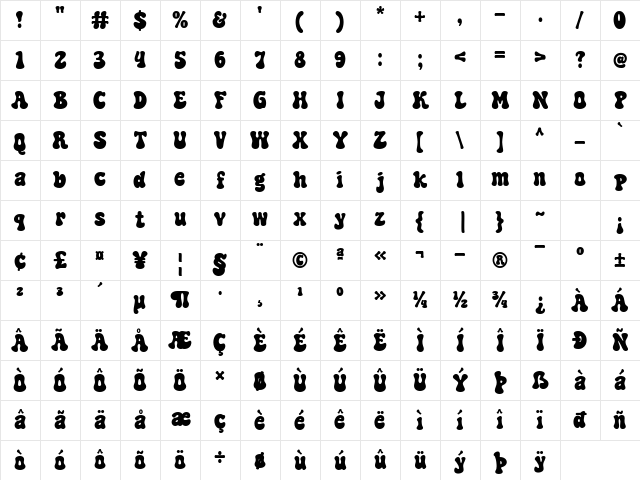
Super Maples Regular
Design Context for Super Maples
Super Maples is a composed and adaptable typeface that performs quietly and consistently across a wide range of design contexts.
Pro Tip: Use Super Maples in both headline and body roles to test its range before committing to a single application.